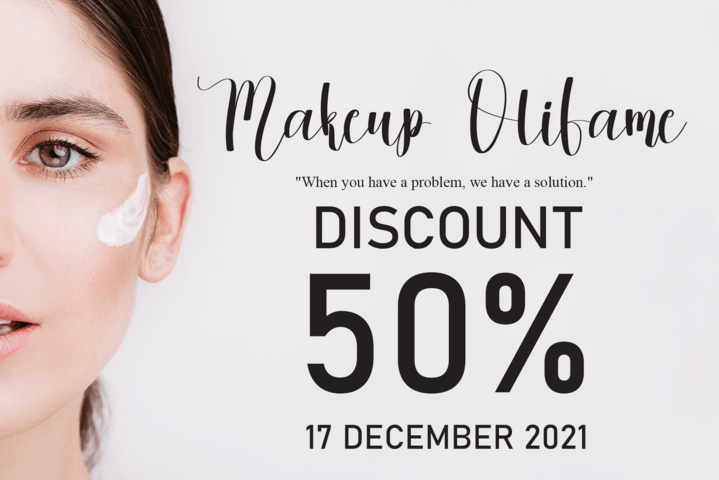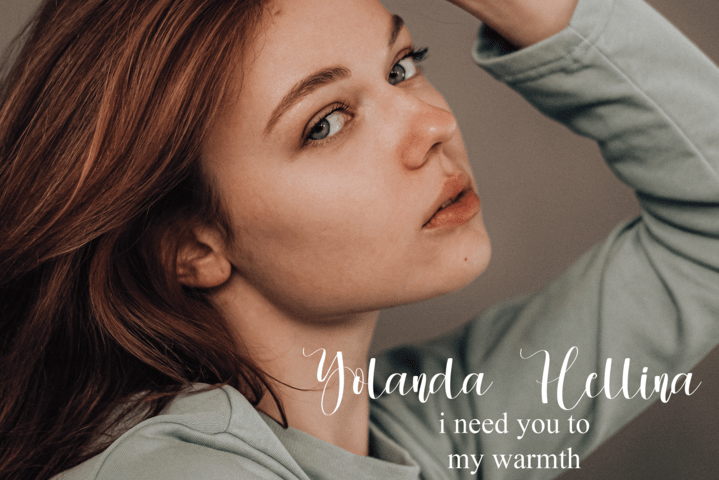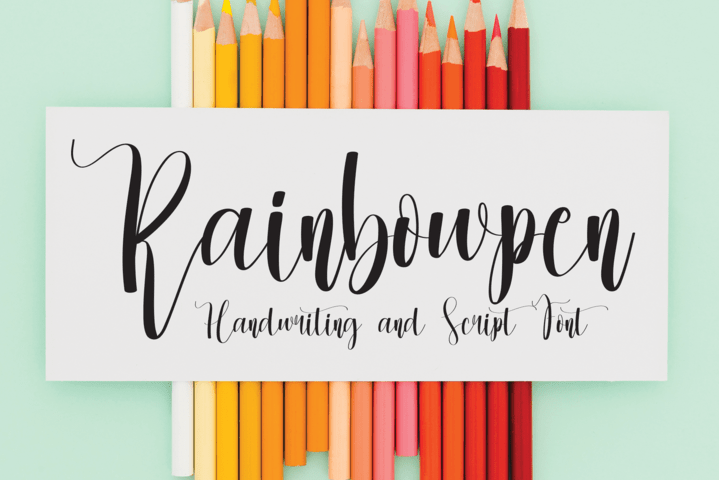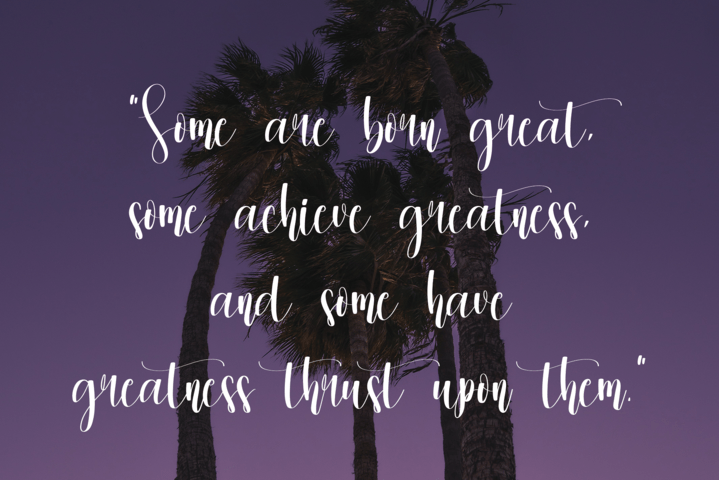
Christmas Valentine Font
Christmas Valentine Script Font
It’s a beautiful handwriting and script font suitable for logos, branding projects, kid’s clothes, t-shirt design, product packaging, quotes, and others.